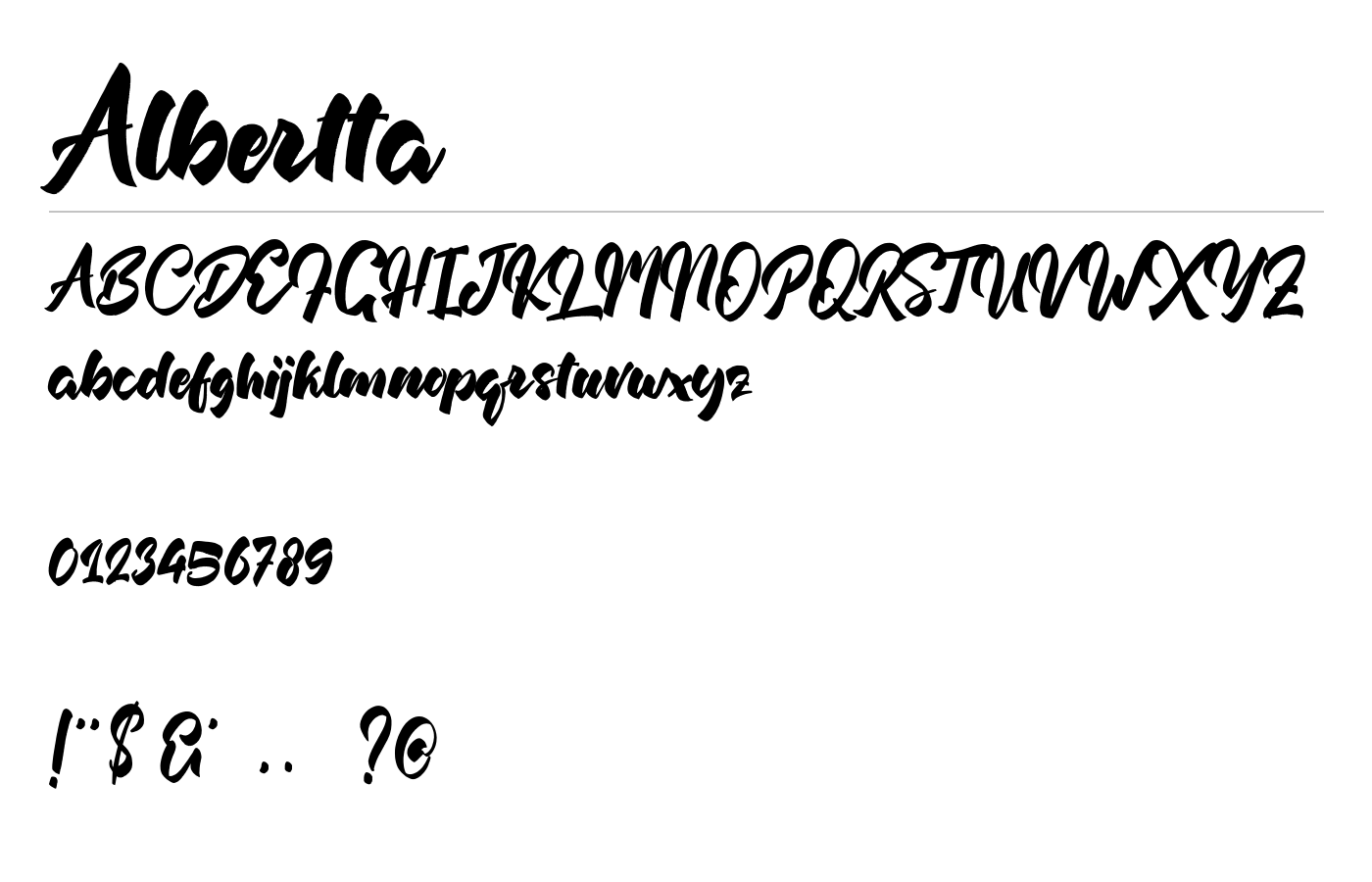
Albertta is a bold, brush-style script font with energetic, flowing strokes that create a lively and informal appearance. Its thick and slightly textured letterforms, combined with playful curves and dynamic angles, make it ideal for creative branding, invitations, and eye-catching headlines that seek a handcrafted, artistic feel. This font works best in designs that want to convey warmth, creativity, and a modern, casual vibe.
Albertta Font
About Albertta Font
| Font family | Albertta Font |
| Designer | MissinkLab Studio |